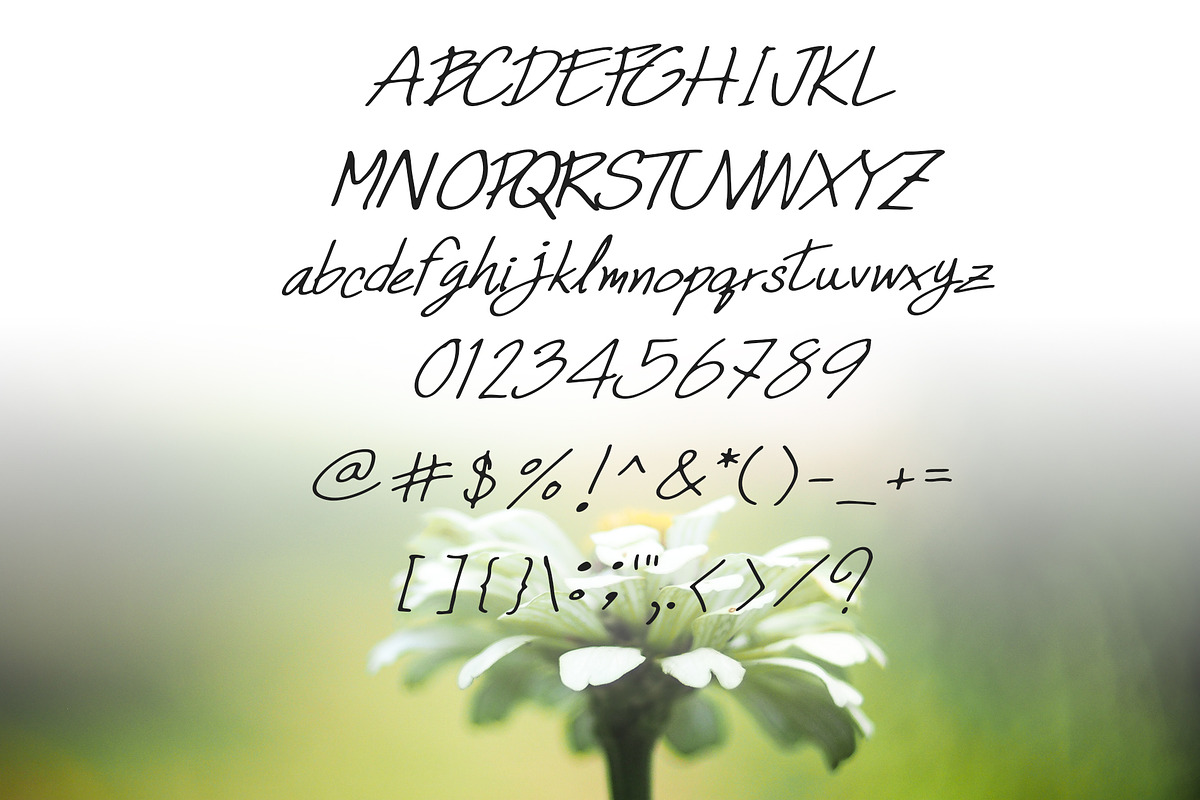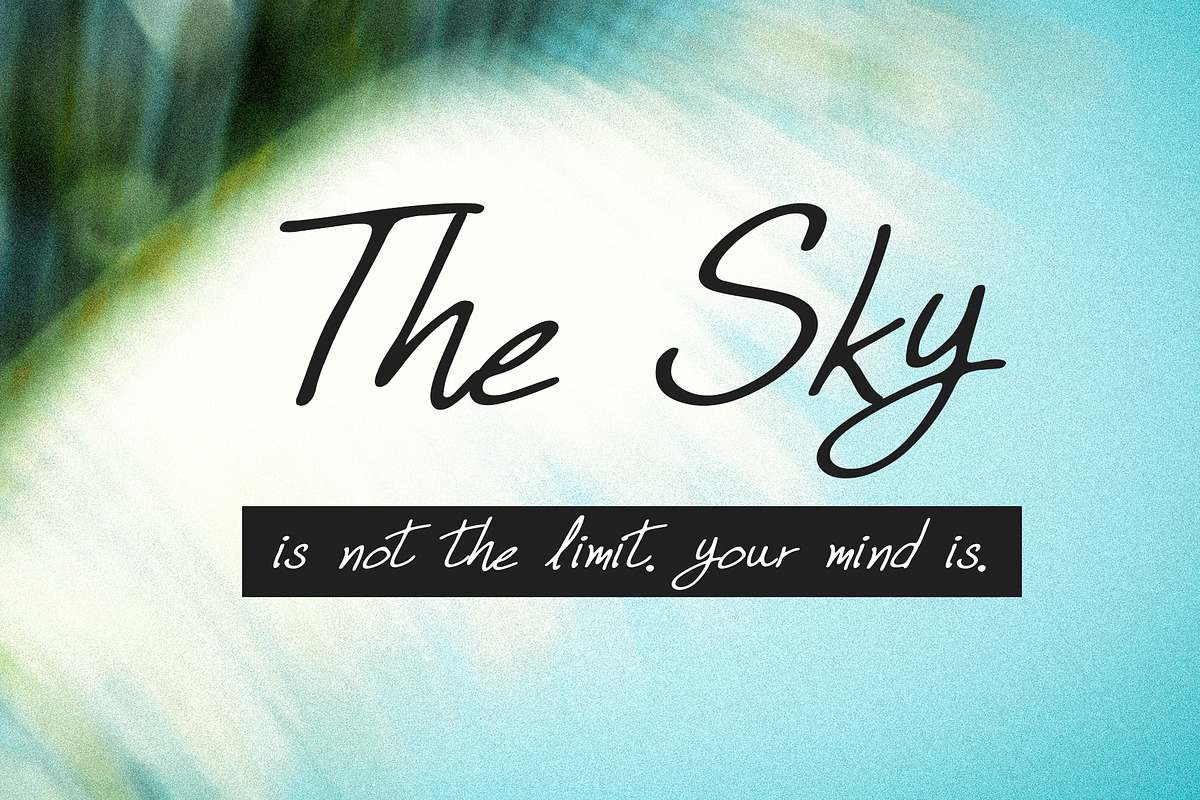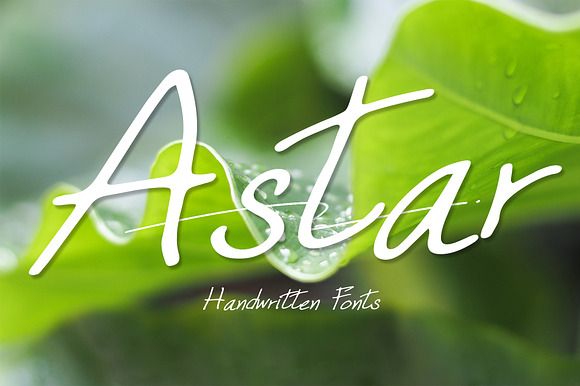
Astar Handwritten Fonts
Astar is a handwritten character. You can use it to write text, decorate your publication to look better, more fun and interesting. Then you will love it!
Astar Handwritten Fonts by skyclick fits naturally into Branding, posters, packaging, typography.